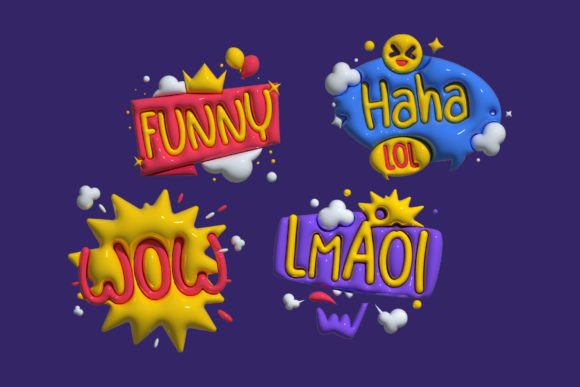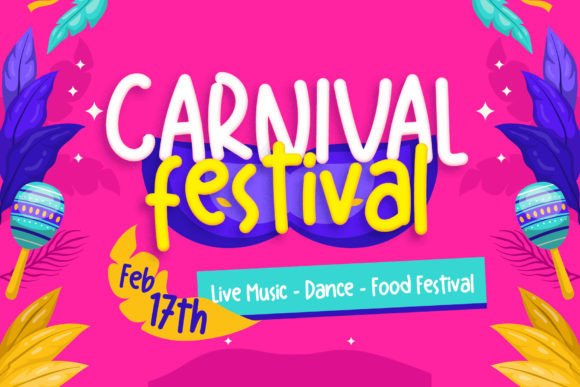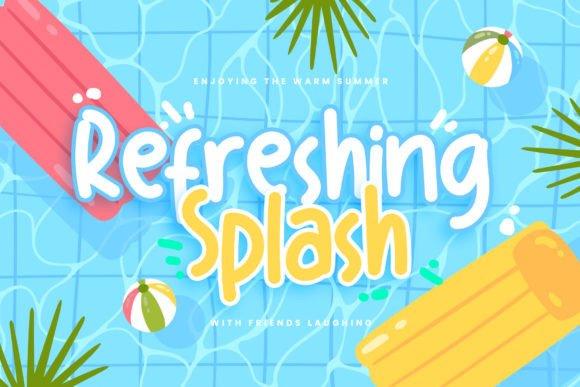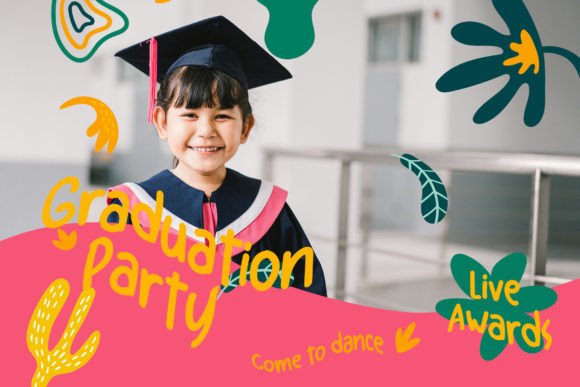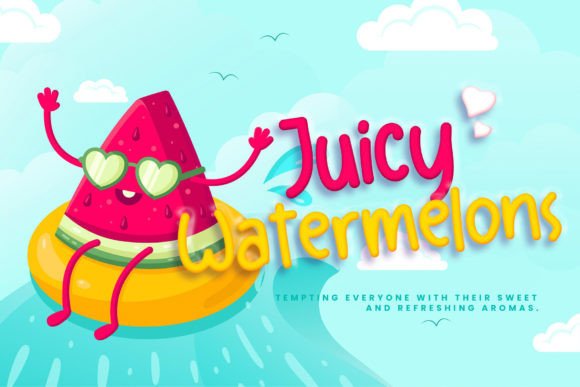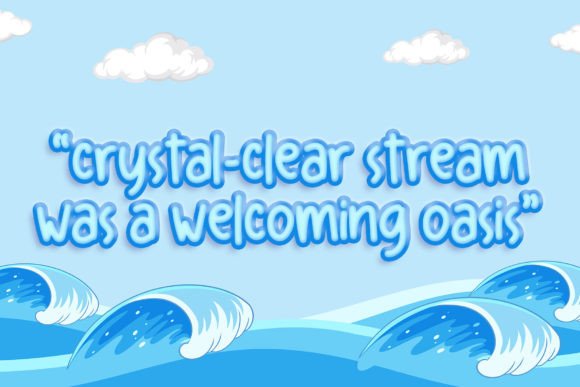
Unleashing the Power of Fun and Creativity
Have you ever sat at your desk, staring blankly at a blank page, waiting for inspiration to strike? For many creatives, the spark of imagination comes from the simplest of things – a conversation, a walk in nature, or in this case, a font. The moment you lay eyes on the Fun Play Font, you know you’re in for a treat. Its playful and spirited letterforms are like a breath of fresh air, filling your design with a sense of joy and lightheartedness.
As a designer, you know that finding the right font can make all the difference in bringing a project to life. That’s where the Fun Play Font comes in – a versatile and dynamic typeface that’s perfect for capturing the essence of carefree creativity. With its bold lines and charming irregularities, it’s no wonder designers turn to Fun Play when they need to add a dash of fun and playfulness to their designs.
Key Features of “Fun Play Font”
- Font Family: Fun Play Font is a sans-serif font family with a playful and modern design.
- Character Set: Includes a comprehensive set of characters, including uppercase and lowercase letters, numbers, punctuation, and special characters.
- Size: Offers 6 font sizes, ranging from 10pt to 72pt, to cater to various design requirements.
- Unique Characteristics: Features a unique, rounded design with subtle curves and a friendly feel, making it perfect for children’s books, educational materials, and playful branding.
Fun Play Font Review
Overall, I found the “Fun Play Font” to be a delightful and whimsical font that can add a playful touch to any design project ✨. The font’s unique, hand-drawn feel and varied letterforms make it a great choice for creative projects that require a bit of personality.
Here are some of the things that work well with this font:
- ✨ Unique letterforms add visual interest to text
- ✨ Font is highly customizable, making it easy to adjust to different design contexts
- ✨ Works well for titles, headings, and other display text
- ⚠️ May be difficult to read in smaller sizes or for large blocks of text
- ⚠️ Can be overwhelming if used excessively, so use sparingly
- ⚠️ Limited language support, which may be a concern for global projects
Overall, I think the “Fun Play Font” is a great choice for designers looking to add some whimsy and personality to their projects. While it may have some limitations, its unique feel and high customization options make it a versatile and effective font.
Practical Application Guide for Fun Play Font
Some common use cases for Fun Play Font include:
- Creating playful and eye-catching social media graphics
- Designing children’s educational materials
- Adding a fun and whimsical touch to wedding invitations or party decorations
- Creating a bold and playful logo or brand identity
Remember to experiment with different font sizes, colors, and effects to get the most out of Fun Play Font.
Alternatives to Fun Play Font for Designers
Great Vibes is a modern, cursive font suitable for headings and titles. It’s ideal for creating a playful and approachable atmosphere in designs. Compared to Fun Play Font, Great Vibes is more elegant and sophisticated, making it suitable for a wider range of design projects.
Lobster is a popular script font often used for headings, titles, and emphasis. It’s perfect for creating a fun and casual atmosphere in designs. Unlike Fun Play Font, Lobster is more dramatic and attention-grabbing, making it ideal for promotional materials and advertisements.
Pacifico is a beautiful, elegant script font suitable for headings, titles, and body text. It’s ideal for creating a relaxing and calming atmosphere in designs. Compared to Fun Play Font, Pacifico is more refined and sophisticated, making it suitable for luxury and high-end design projects.